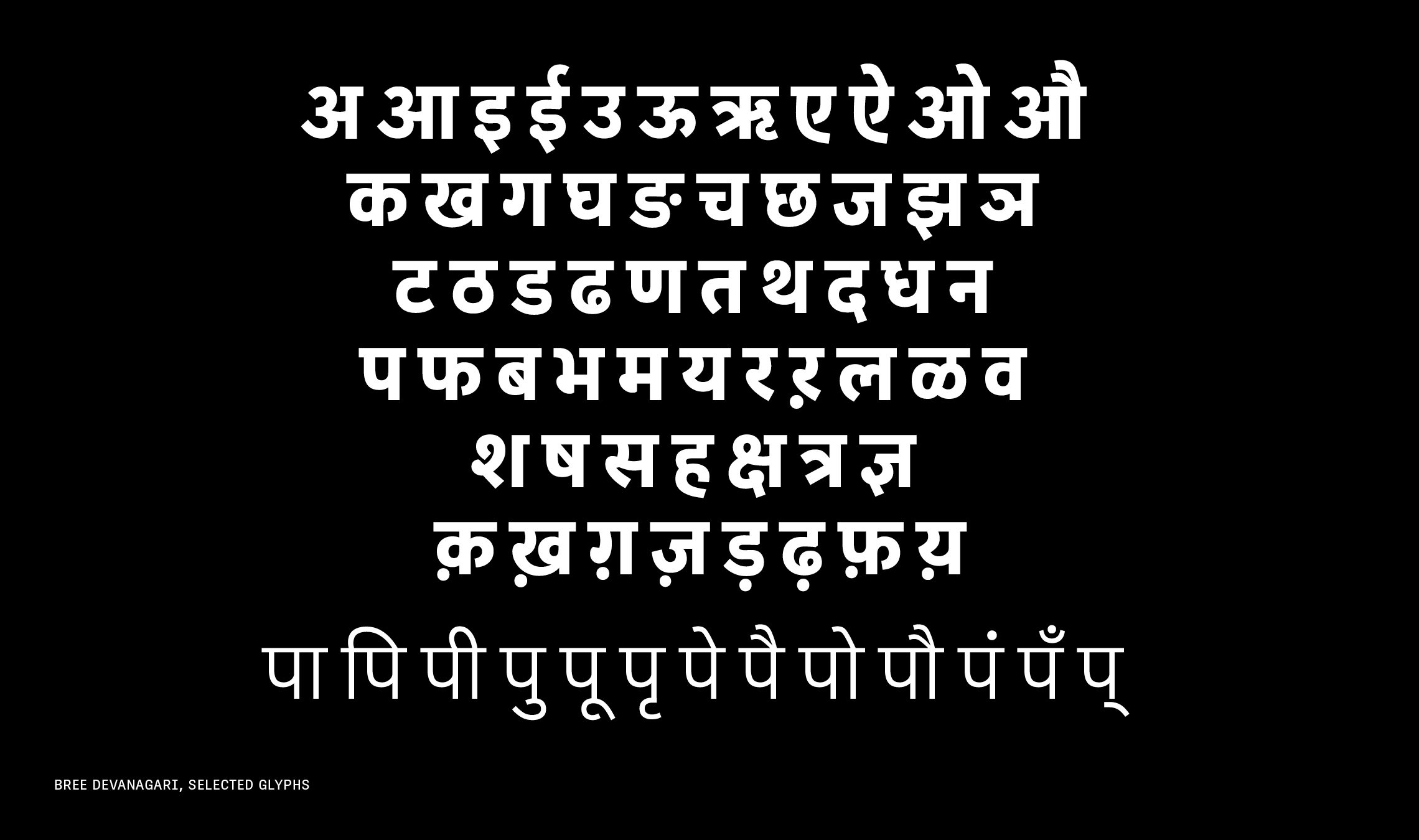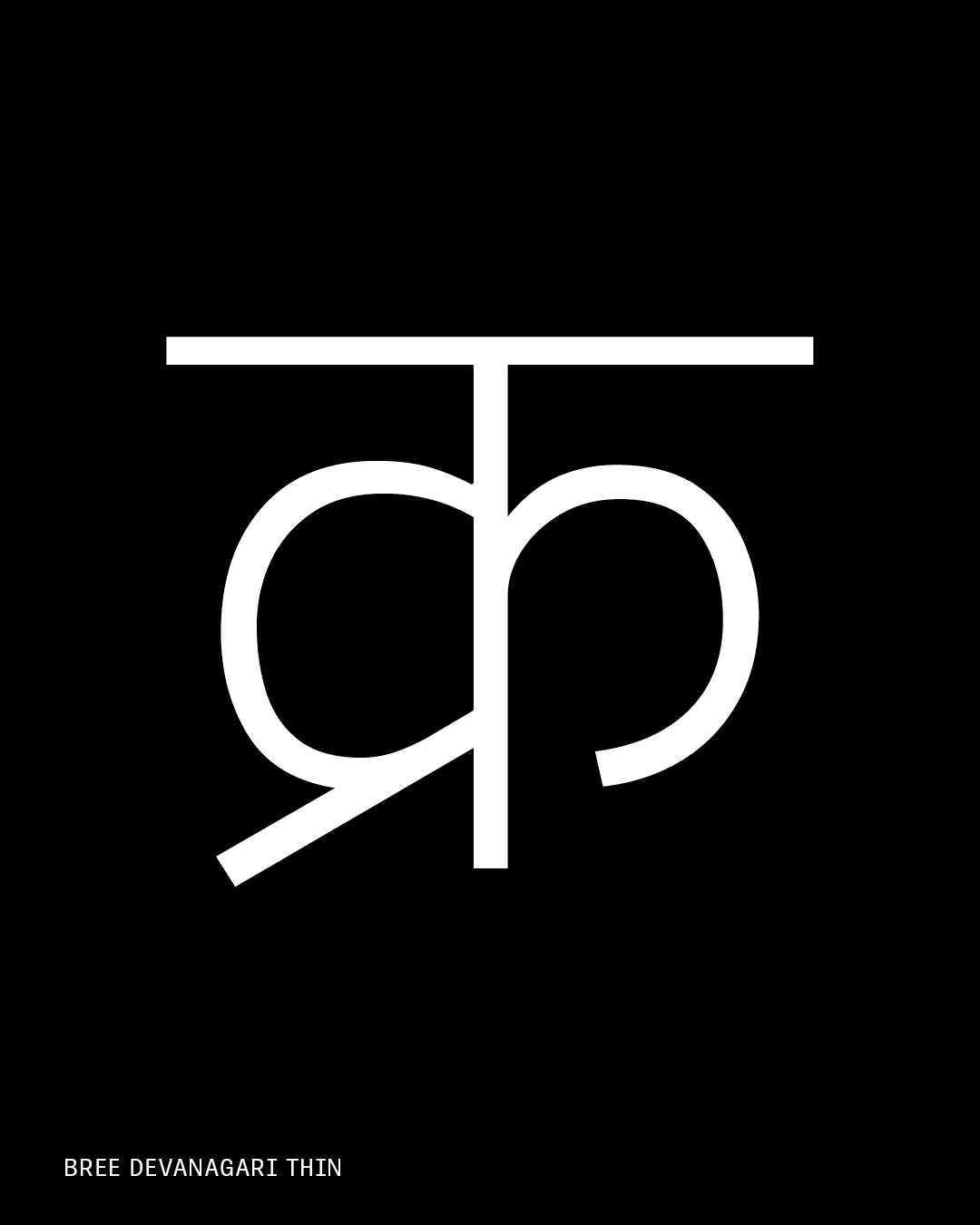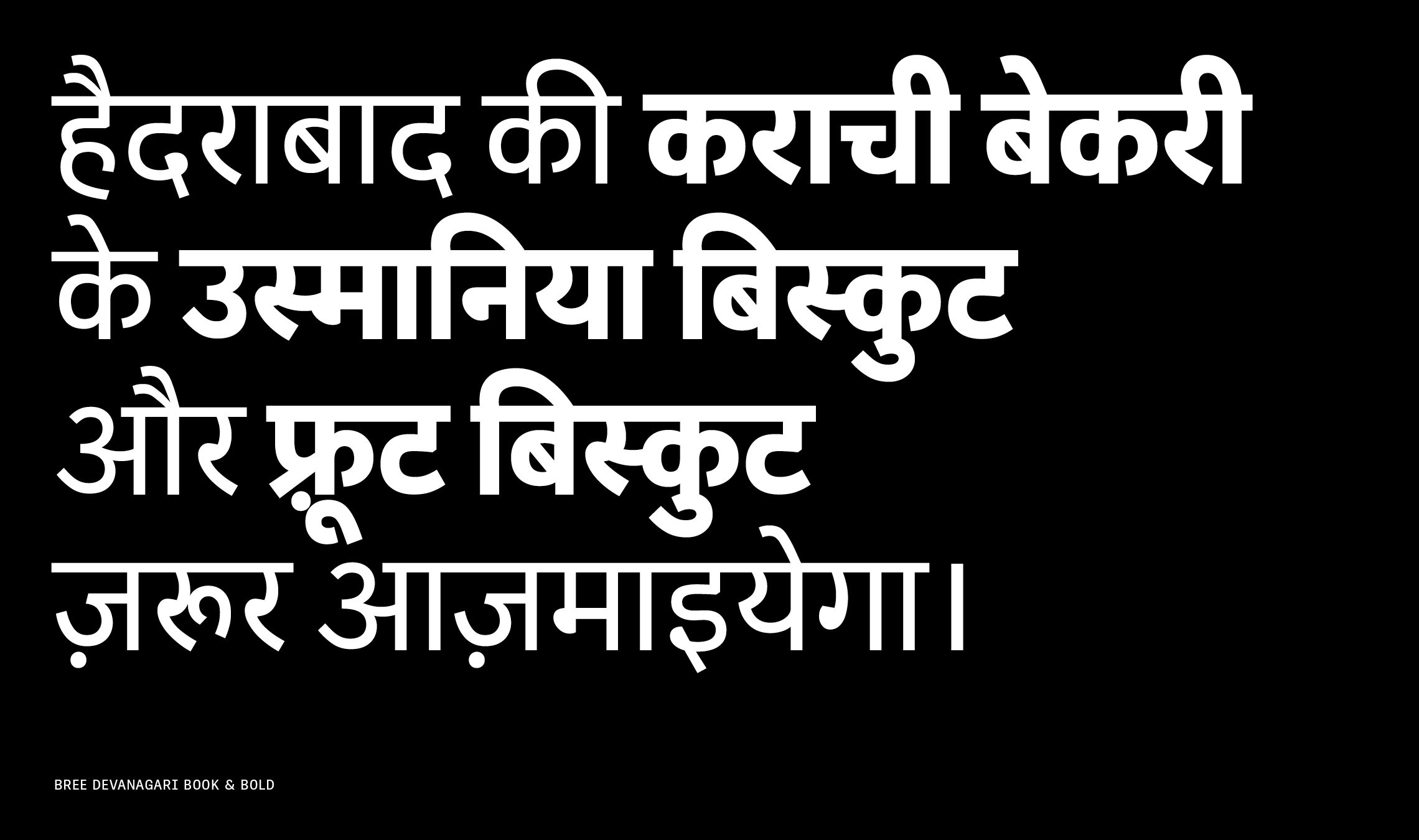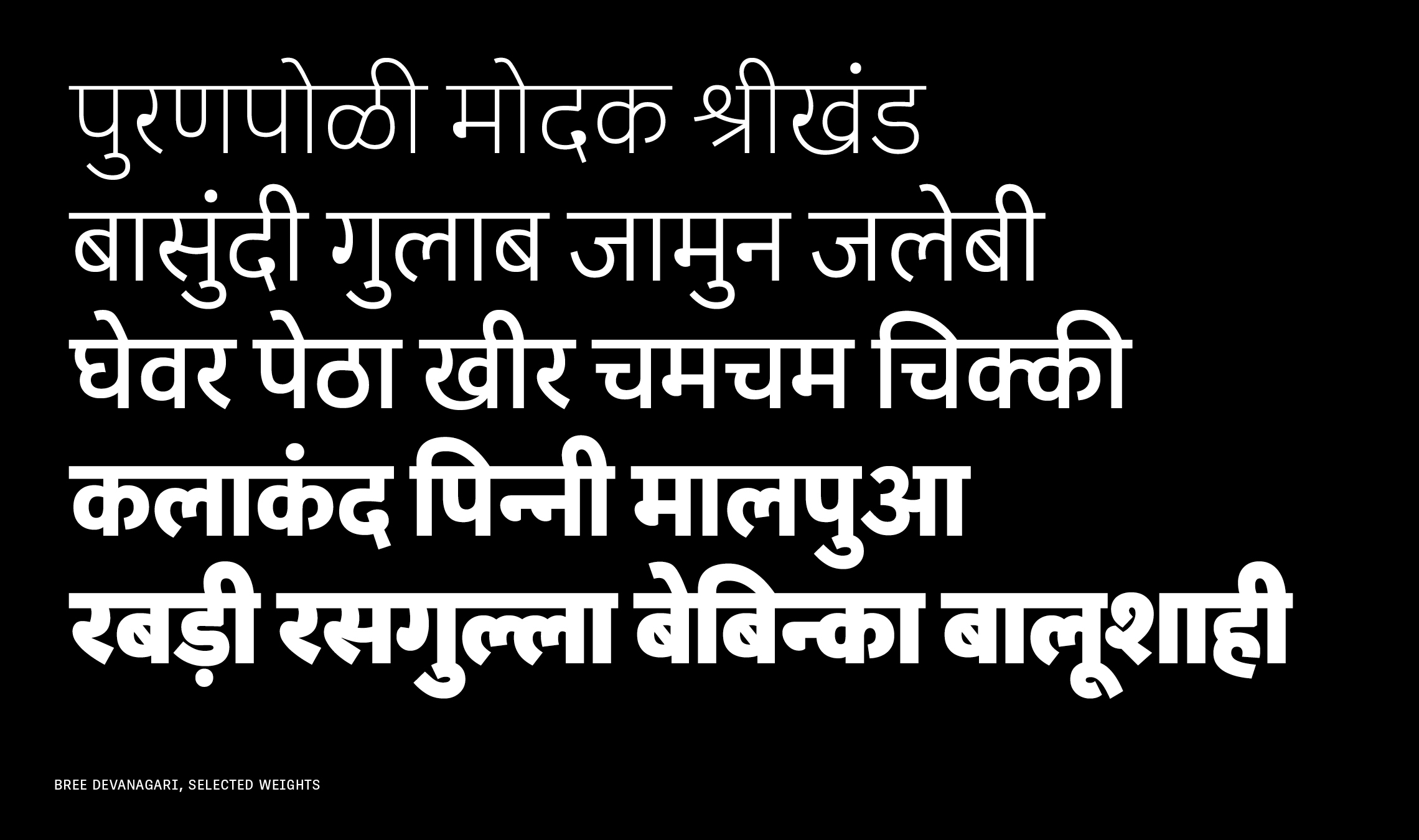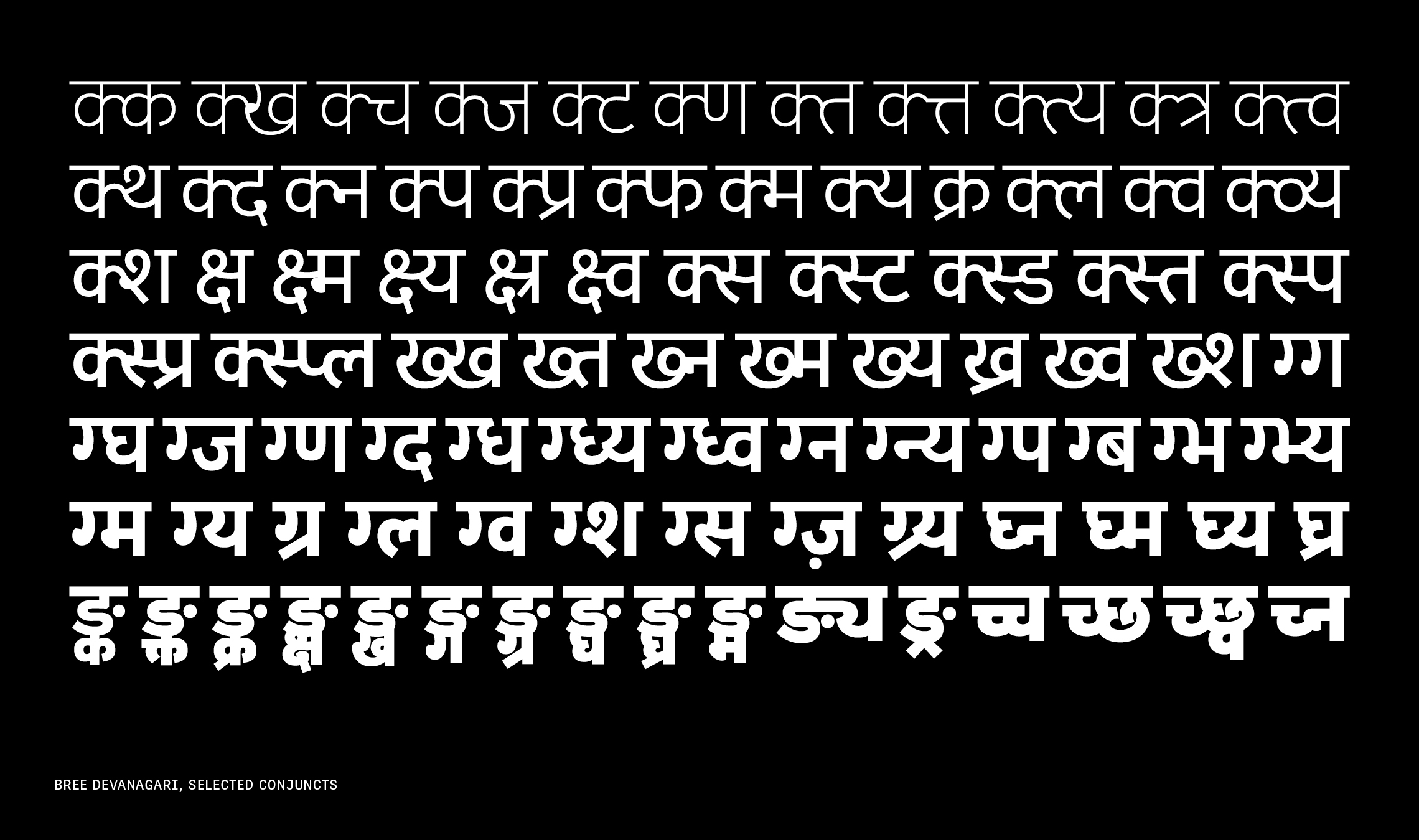
Bree Devanagari: एक झलक
Here’s a preview of one of our most popular type families interpreted into Devanagari. With a poised rhythm and a big-hearted extrabold, it’s sure to be one of your favorites.
Bree Devanagari will be released in seven weights, including its gregarious extrabold. Designers will love its versatility and its friendly, easygoing nature. We think Bree Devanagari will find numerous uses in logos, packaging, branding, and headlines, while its text weights encourage reading in longer settings.
While Bree Devanagari’s inspiration comes from its Latin counterpart, the design team led by Pooja Saxena took special care with Devanagari letterforms. The result is an impressive palette that can go from scant in the thin weight to bursting in the extrabold.
Originally inspired by TypeTogether’s logotype, Bree Latin launched in 2008 and was an immediate triumph. A decade and a half later we began work on translating the design into Devanagari. This latest extension matches the meter of the established scripts by echoing handwritten gestures and gentle strokes, and building upon a foundation of narrow but even horizontal proportions.